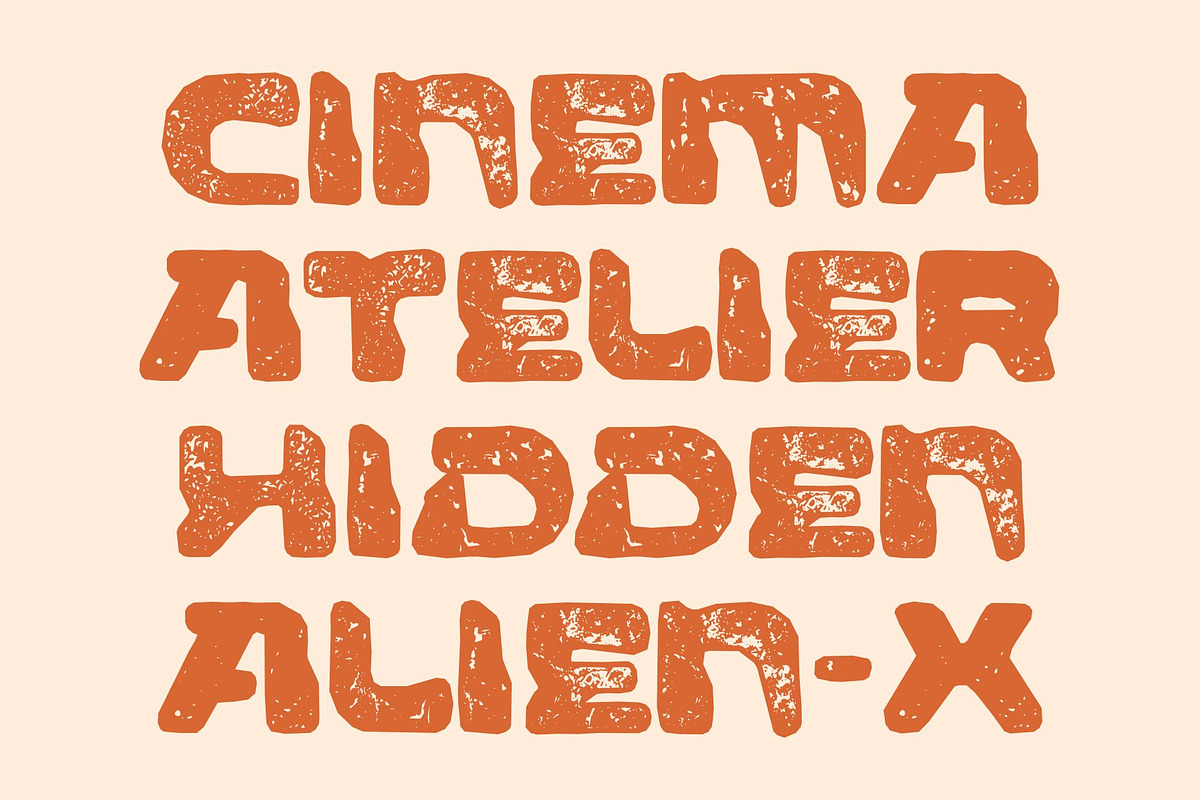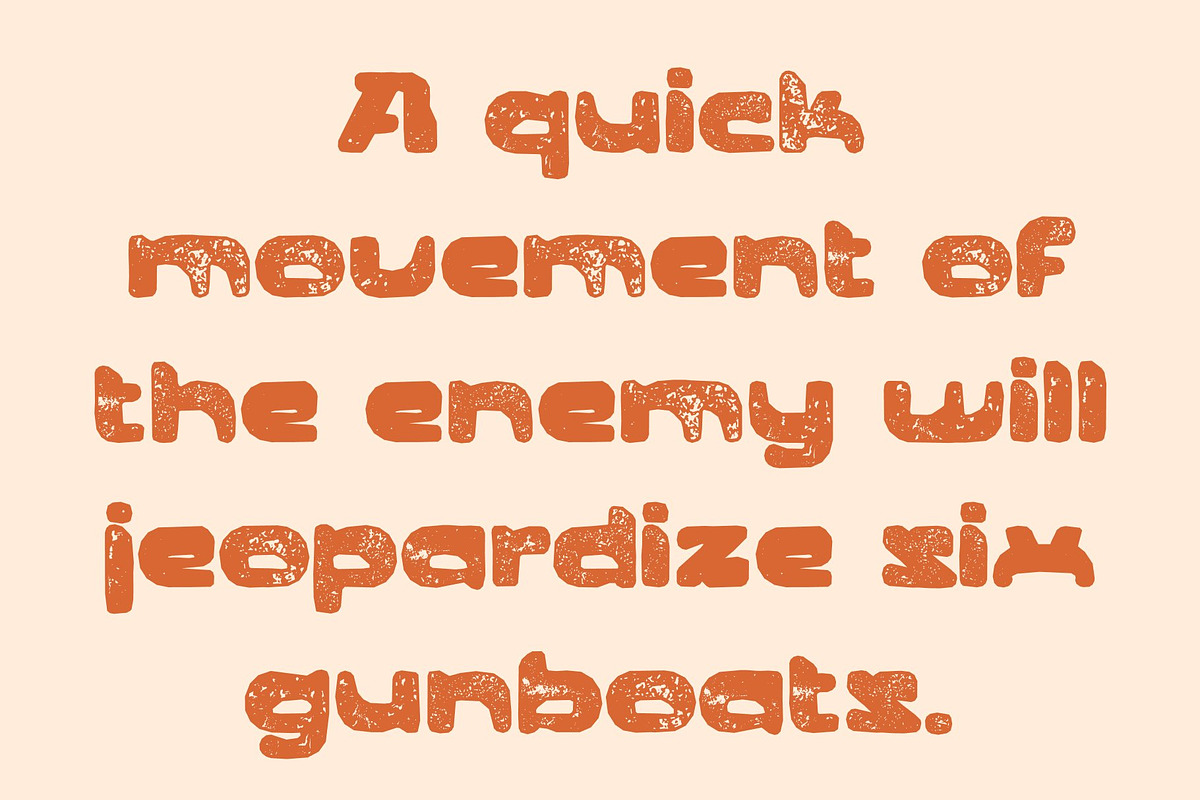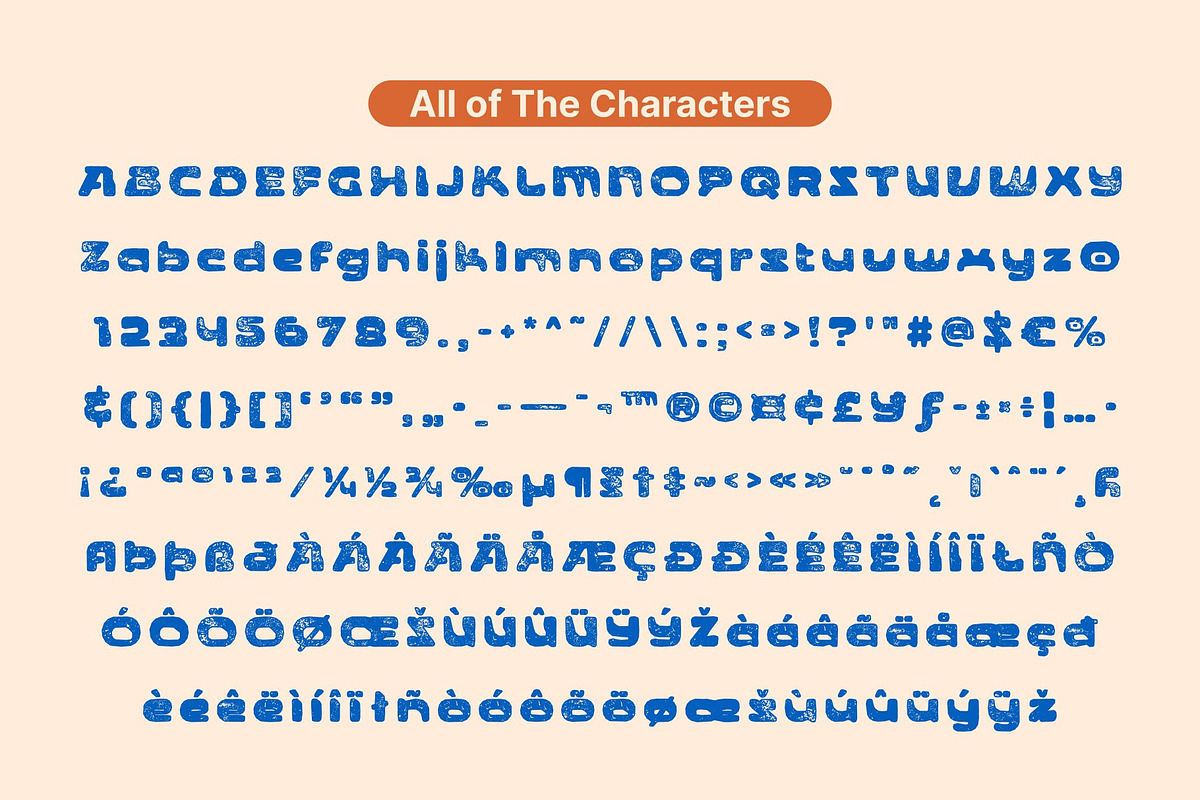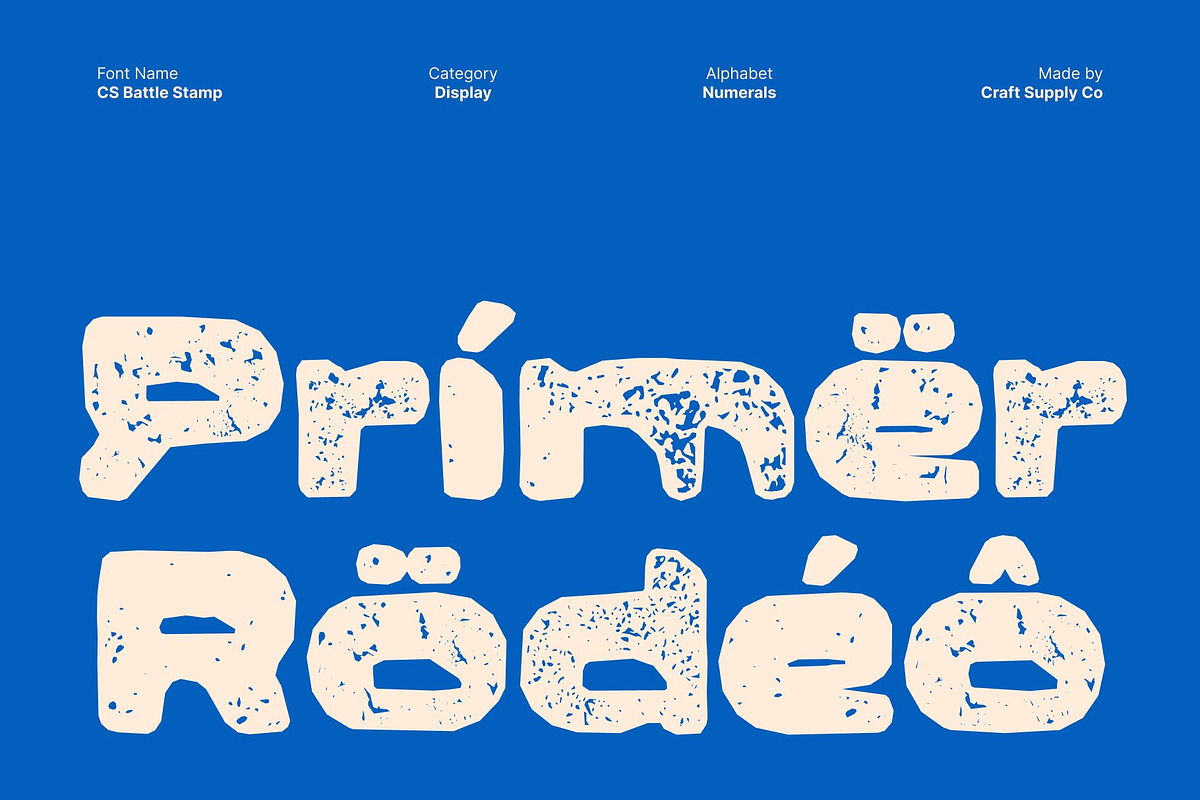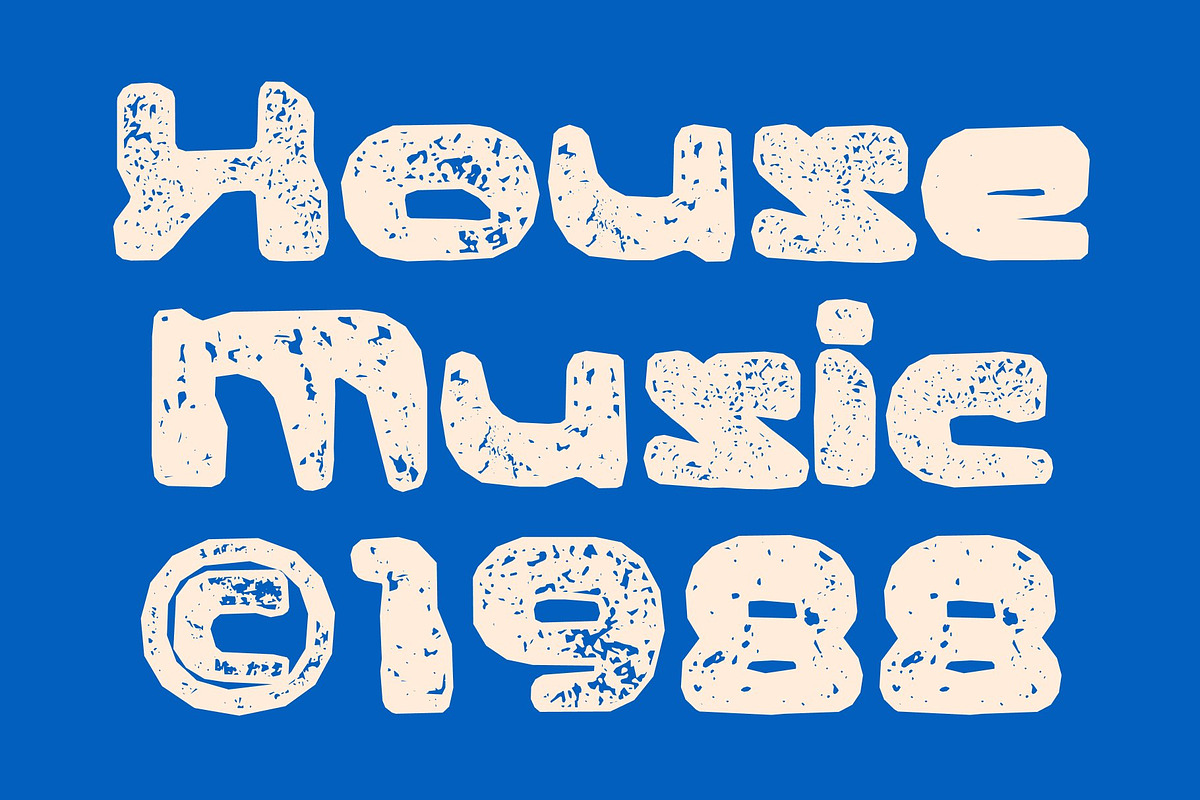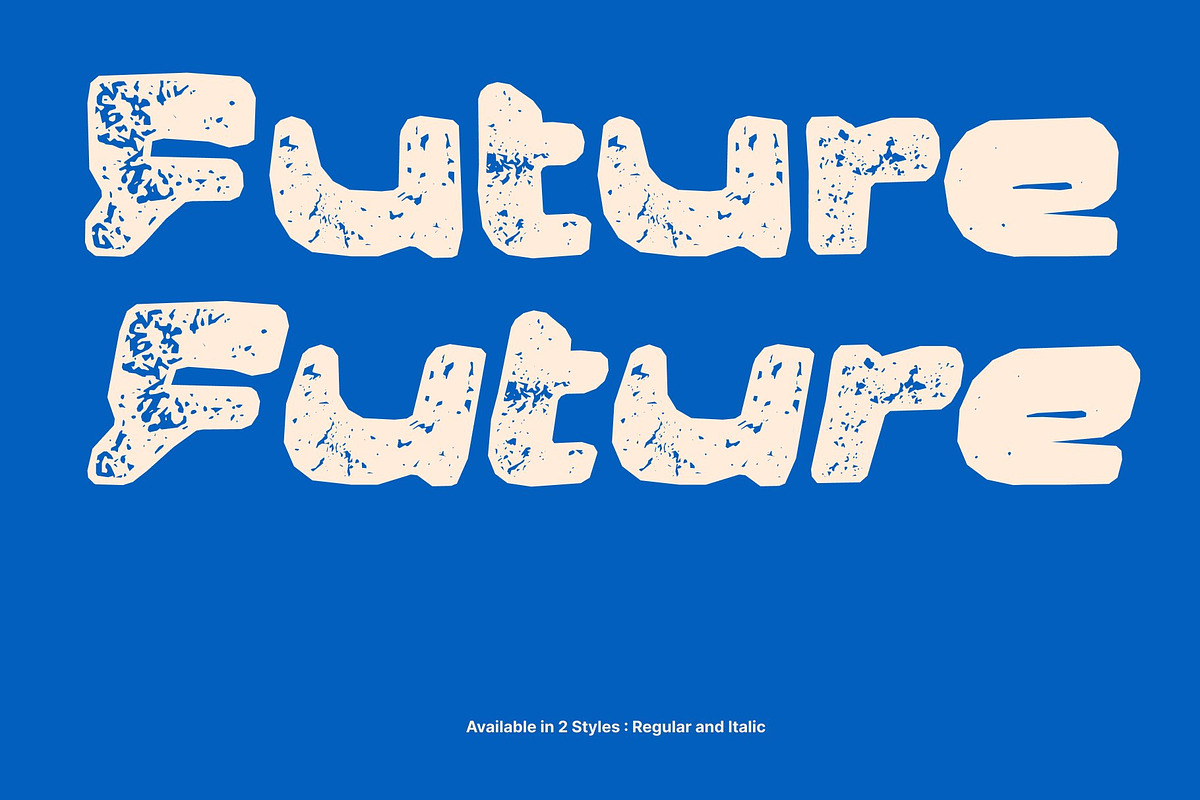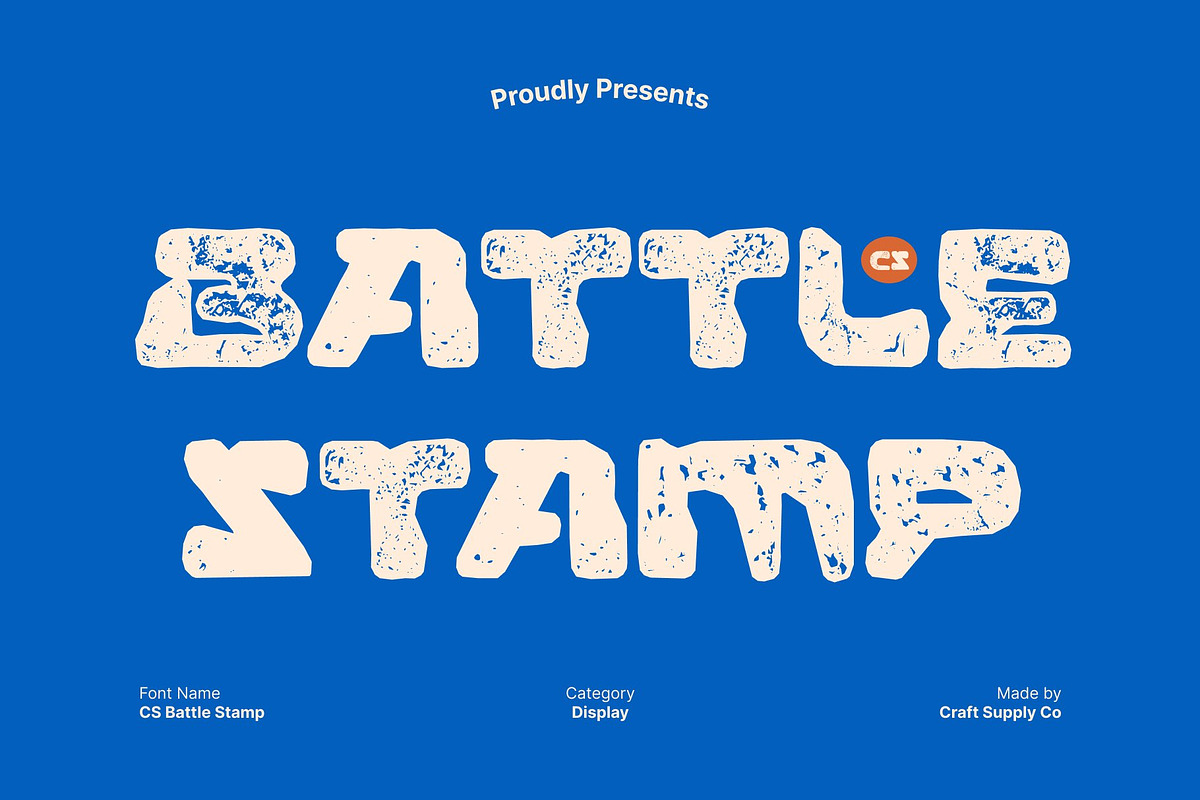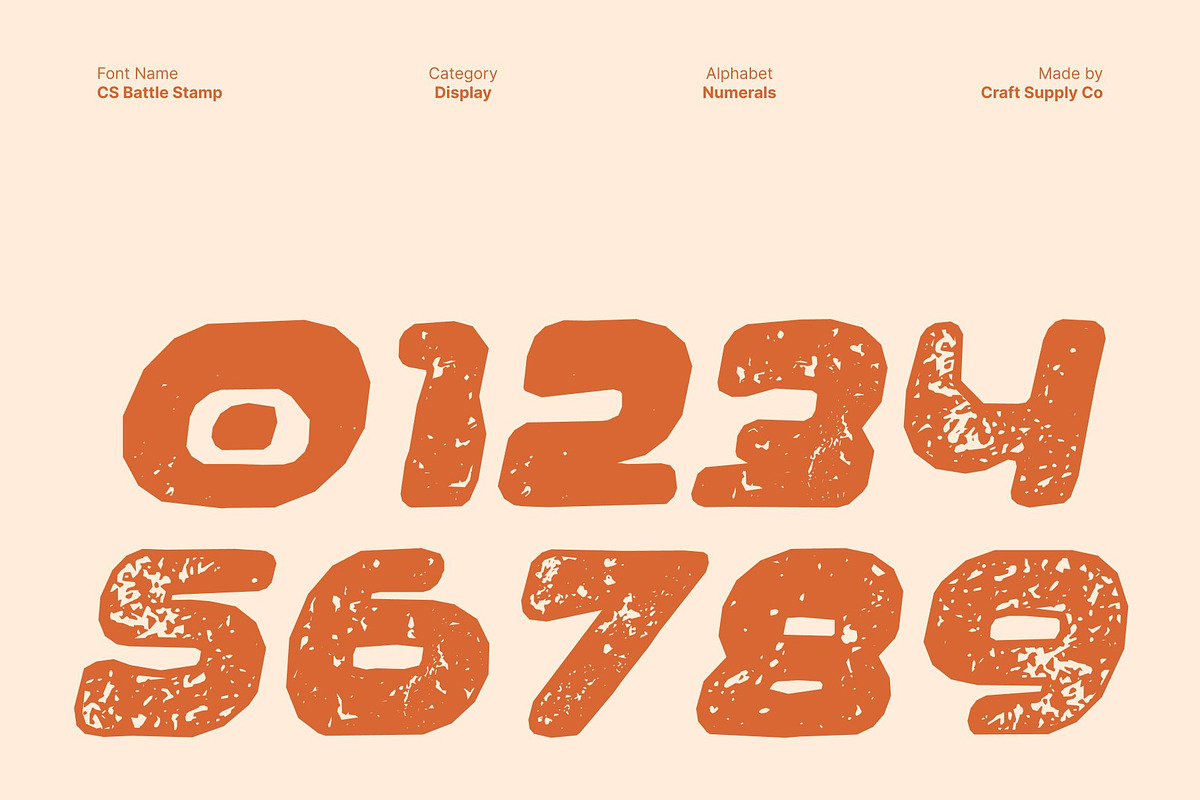
CS Battle Stamp
CS Battle Stamp – Futuristic Bold Display Font Futuristic Power with Raw Stamped Character This is a bold futuristic display font that merges sharp geometry and precise structure with a textured stamp effect. While its angular, clean letterforms speak the language of modern technology and innovation, the stamped finish introduces a raw, tactile quality adding depth, personality, and a striking visual contrast between future-forward design and vintage imperfection.
Digital Precision Meets Vintage Texture Built on strong geometric foundations, this font features rigid forms, sharp edges, and confident proportions inspired by sci-fi interfaces and high-tech systems. The stamp texture softens its digital precision with an aged, industrial feel, evoking mechanical prints, worn surfaces, and analog grit. This fusion creates a typeface that feels both advanced and expressive.
Designed for High-Impact, Experimental Branding Perfect for tech branding, gaming visuals, futuristic posters, album covers, and experimental identities, delivers instant impact. Its bold structure ensures clarity and dominance, while the distressed stamped surface adds artistic texture making it ideal for designers who want their work to feel bold, edgy, and visually layered.
A Bold Voice for Future-Inspired Creativity This font doesn’t just look futuristic it feels powerful, rebellious, and unapologetic. Whether used in digital campaigns, motion graphics, or statement typography, this font pushes boundaries by combining visionary design with vintage character. It’s the perfect choice for creatives who want to express innovation with attitude, texture, and timeless strength.